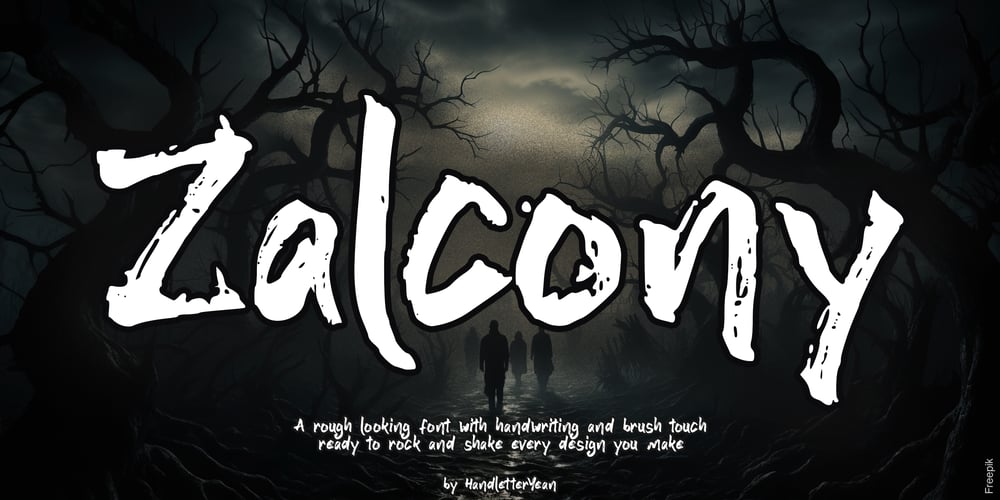
Zalcony Font Family was designed by Yean Aguste and published by HandletterYean. Zalcony contains 1 styles and family package options. Introducing Zalcony, a captivating handmade font exuding a simple yet alluringly distorted brush aesthetic. Every letter and character carries its own unique size, beautifully showcasing the authentic, natural flow of handwritten script. With Zalcony, add a touch of genuine, personalized charm to your designs.